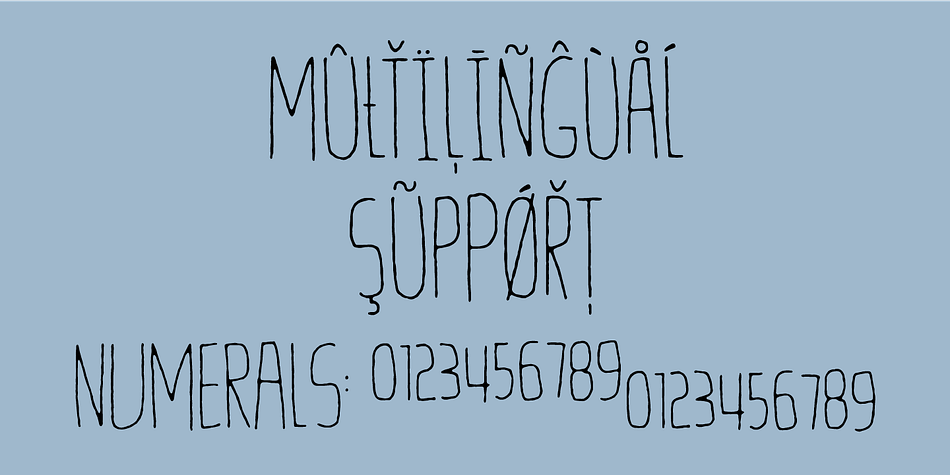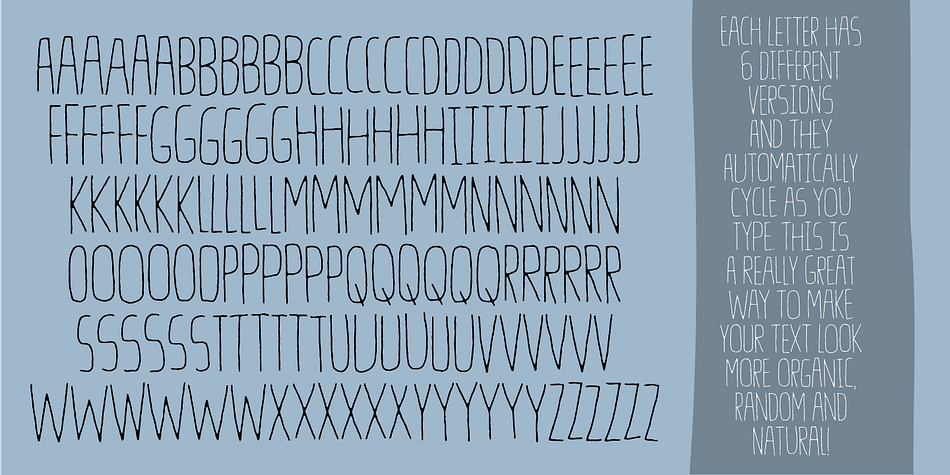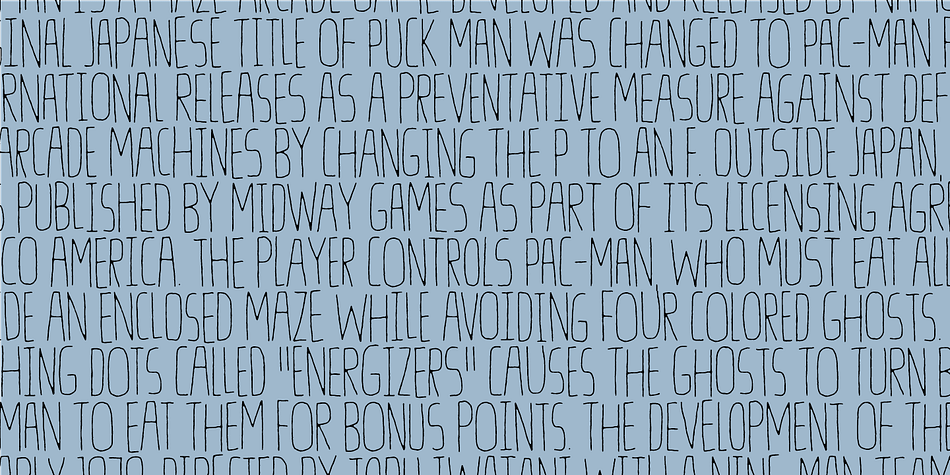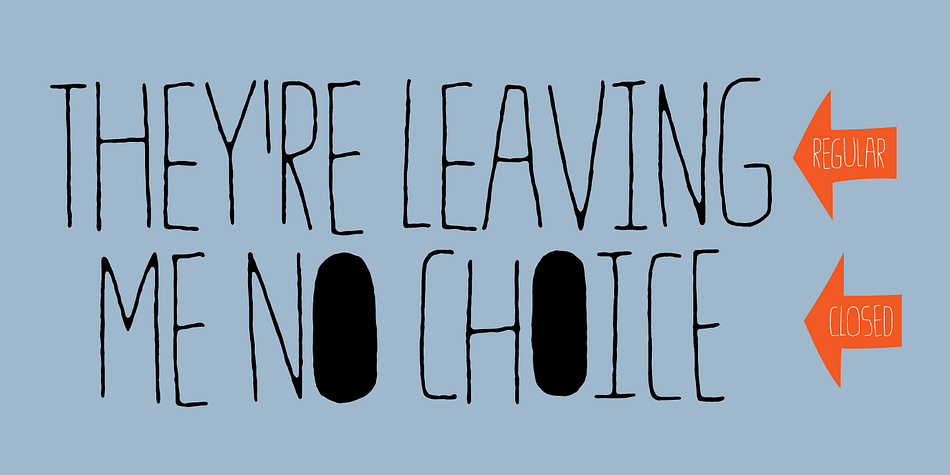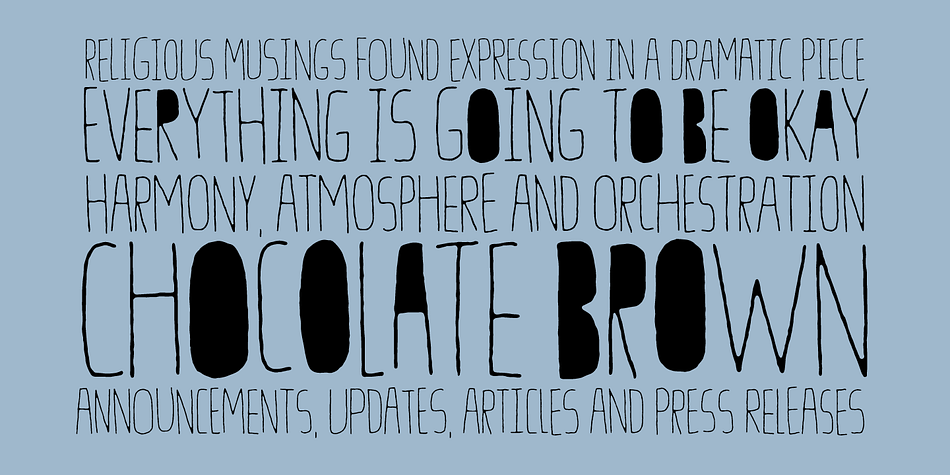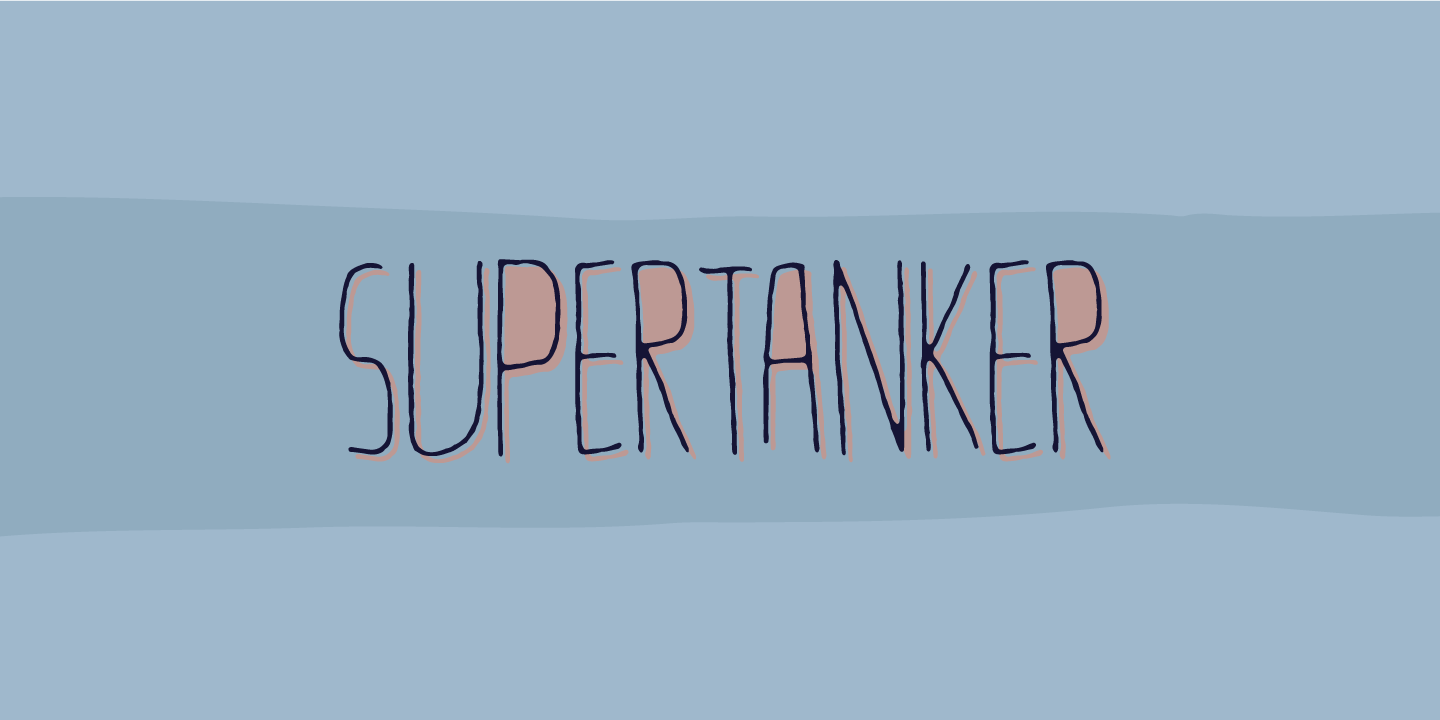
Designed by Jakob Fischer, Supertanker is a hand display and hand drawn font family. This typeface has two styles and was published by Bogstav.
Here’s my tall and thin sans handmade font! It’s lively, rough and quite organic looking - and to boost the natural organic look, I have added 6 different versions of each letter!